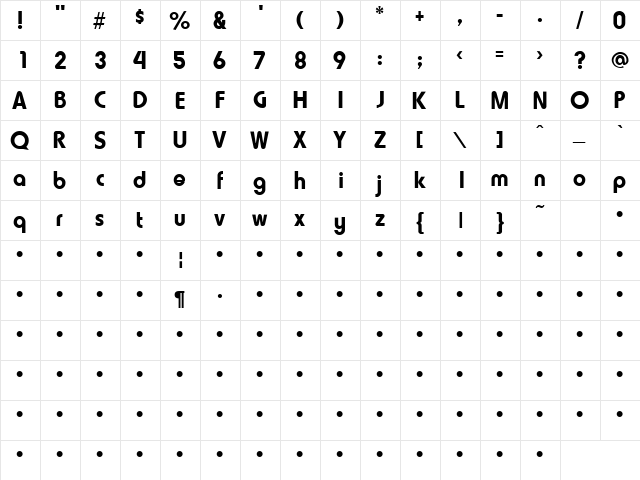
QTHowardTypeFat Regular
Design Context for QTHowardTypeFat Typeface
QTHowardTypeFat is a composed and adaptable typeface that performs quietly and consistently across a wide range of design contexts.